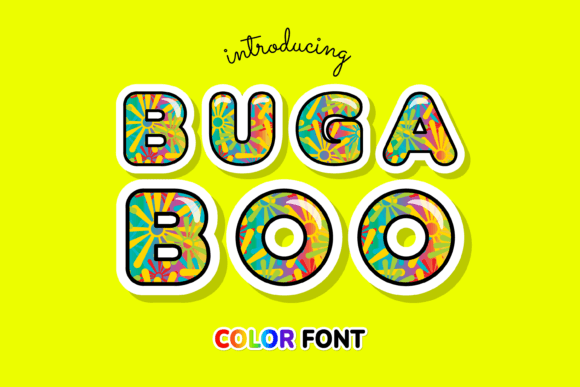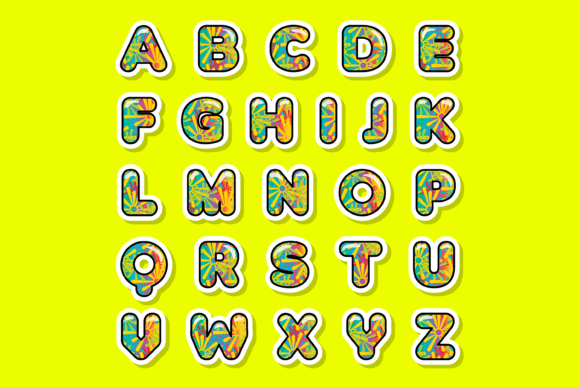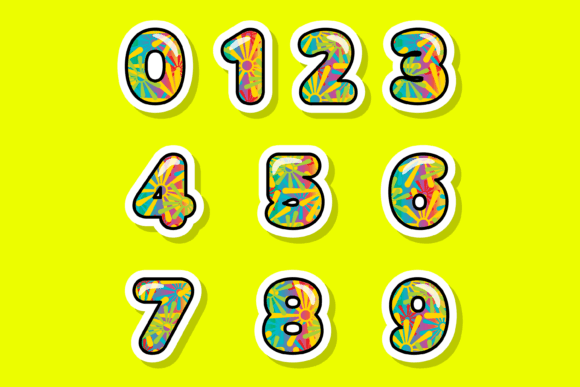
About Bugaboo Font
“Bugaboo” is an incredibly cool and fun color font that adds a touch of excitement to any creative project. Whether you’re working on custom designs, DIY crafts, or any creation that calls for a lovely and vibrant touch, this font is an amazing choice.
With its playful and energetic design, “Bugaboo” brings a sense of joy and liveliness to your work. The vibrant colors and unique details make it perfect for adding a pop of personality and creativity to various applications. Whether you’re designing posters, greeting cards, digital graphics, or anything in between, this font will make your creations truly stand out.
Embrace the cool and fun nature of “Bugaboo” and let your creativity run wild. The versatility of this font allows it to be used in a wide range of projects, providing endless possibilities for customization and personalization. Add a touch of charm and excitement to your designs, and watch as “Bugaboo” transforms them into something truly remarkable.
Enjoy the freedom to express your creativity with “Bugaboo” as your companion. It’s a fantastic choice for adding a cool and vibrant touch to your creative endeavors, making them shine with a lovely and playful vibe.